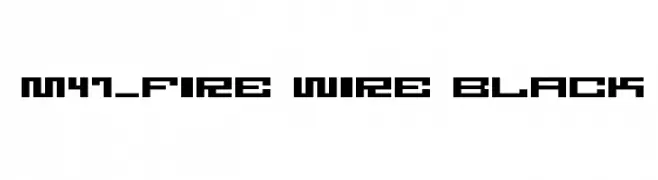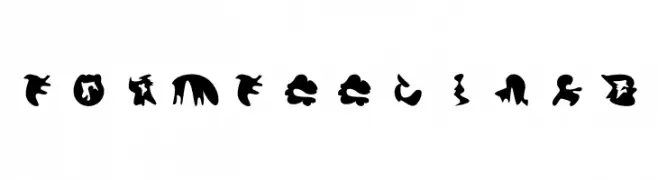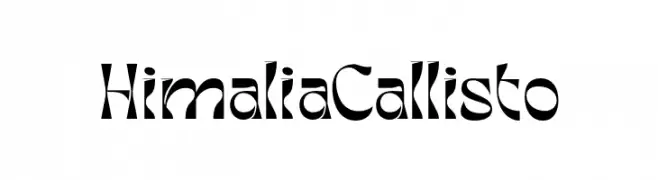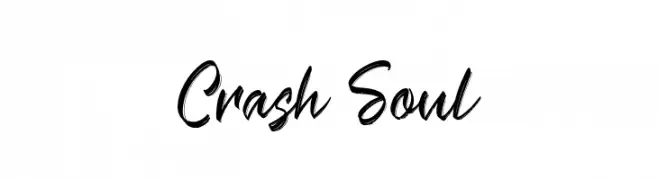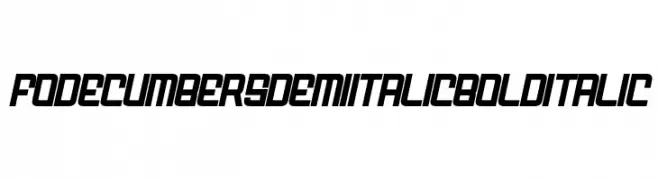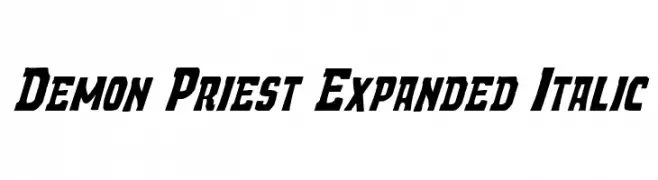
A bold, geometric font with a pixelated, retro gaming aesthetic.
A bold, geometric font with hypnotic, maze-like patterns inside each character.
An abstract, artistic font with bold, silhouette-like characters.
A bold, artistic font with sharp angles and smooth curves, offering a modern and dynamic style.
An elegant and flowing script font with intricate letterforms and graceful swirls.
A bold, brush-style script font with dynamic, flowing strokes.
A bold, italicized font with a modern, angular design.
A bold, expanded, and italicized font with dynamic and angular characters.
A sophisticated, elegant handwritten font with a signature-like style.
A bold, playful font with rounded strokes and a vintage-modern blend.